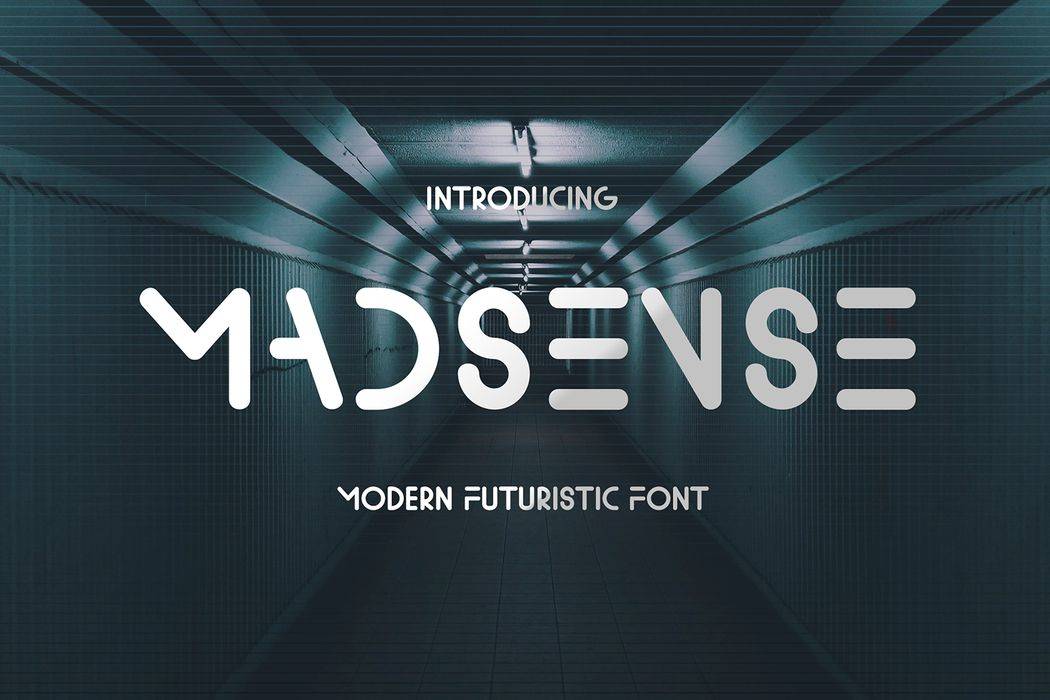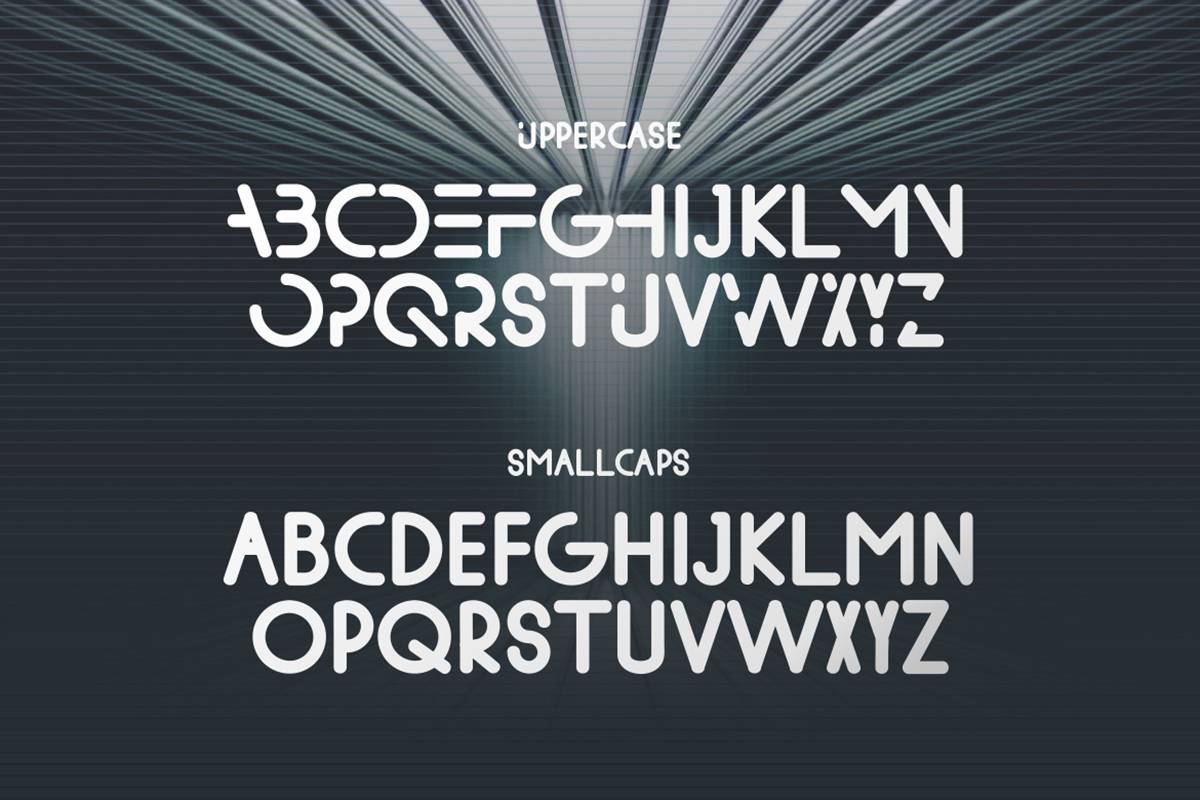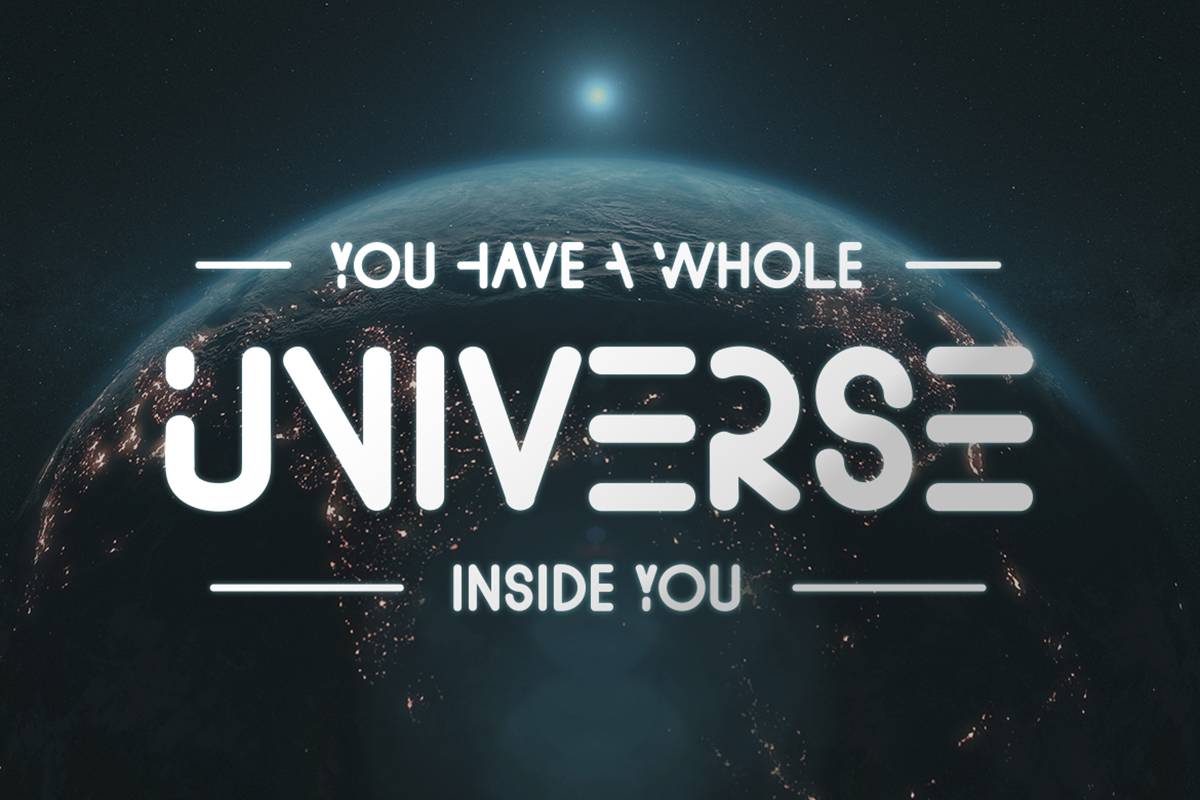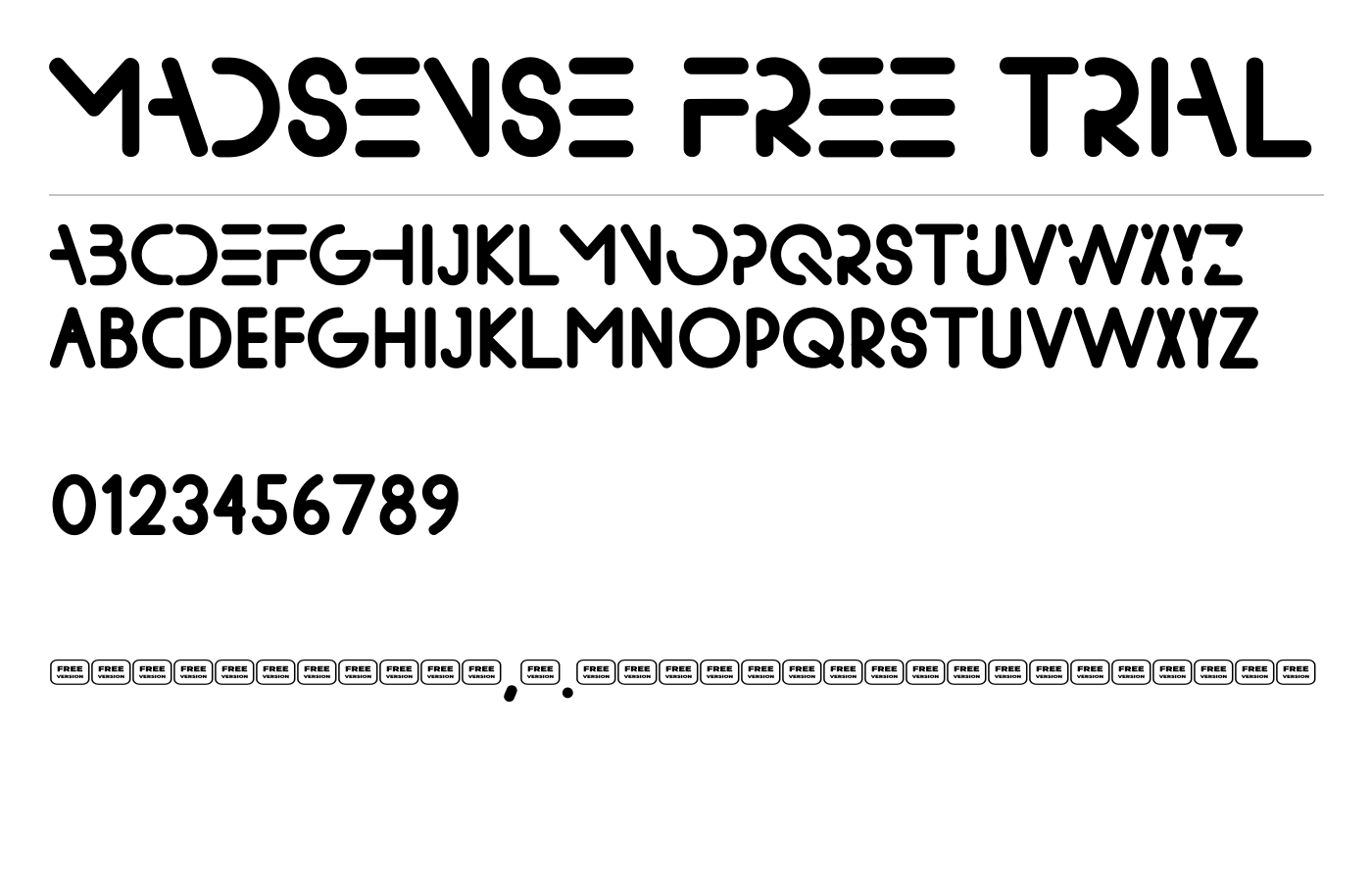
Madsense is a modern, sans-serif font with a futuristic and geometric style, featuring rounded terminals and segmented letterforms that give it a distinct, tech-inspired look. Its medium weight and normal width, combined with a playful yet structured design, make it ideal for bold headlines, branding, and creative digital projects seeking a contemporary and innovative vibe. This font works particularly well in technology, gaming, and modern editorial contexts where a fresh, eye-catching appearance is desired.
Madsense Font
About Madsense Font
| Font family | Madsense Font |
| Designer | typefactory |